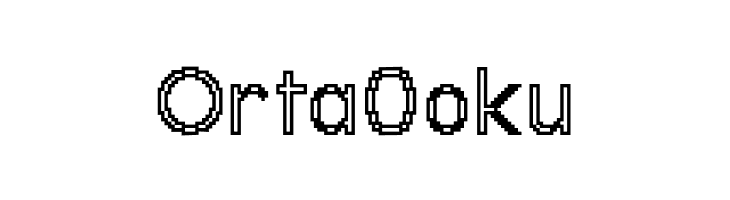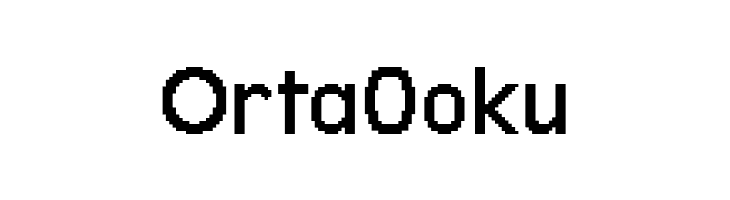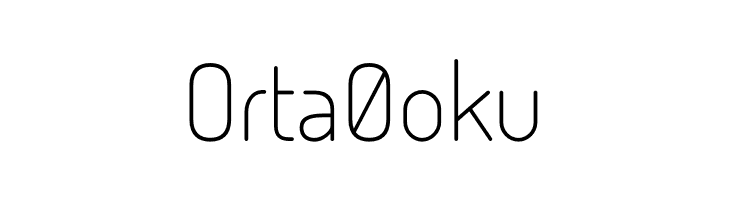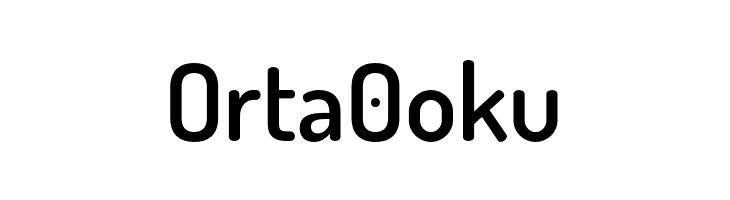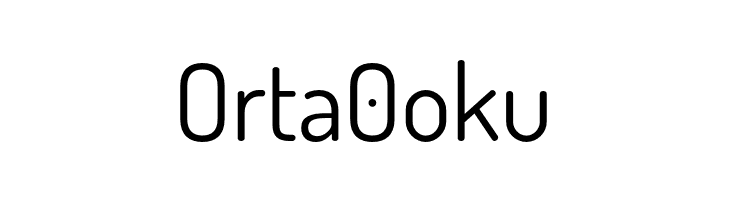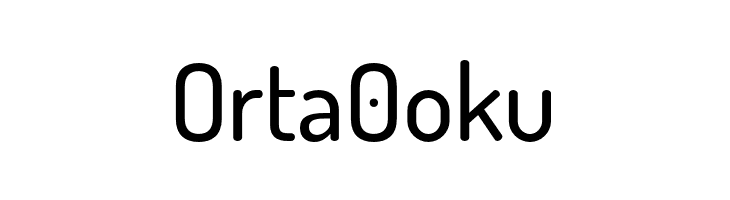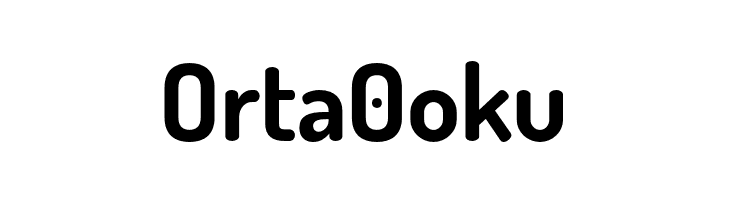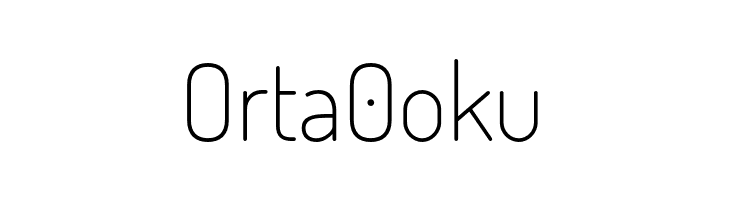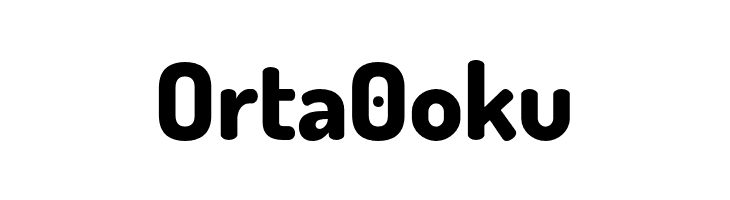
A modern, rounded sans-serif font with a friendly and approachable style.
A modern, geometric sans-serif font with clean lines and balanced spacing.
A bold, rounded sans-serif font with a modern and friendly style.
A modern, rounded sans-serif font with excellent readability and a friendly appearance.
A bold, rounded font with a modern and friendly appearance.
A clean, modern sans-serif font with a geometric and lightweight design.
A modern, geometric font with rounded edges and a light weight.
A modern, rounded sans-serif font with consistent stroke width and excellent readability.
A modern, rounded sans-serif font with a semi-bold weight and excellent readability.
A pixelated, monospaced font with a retro digital style.